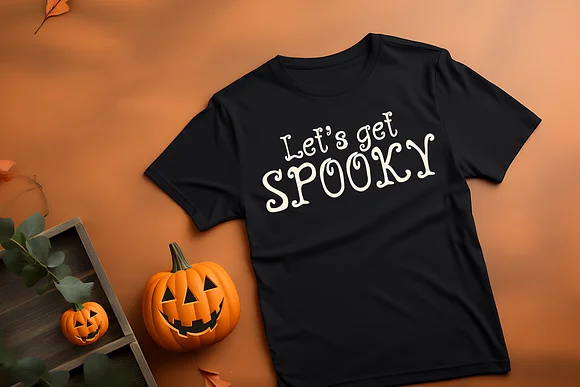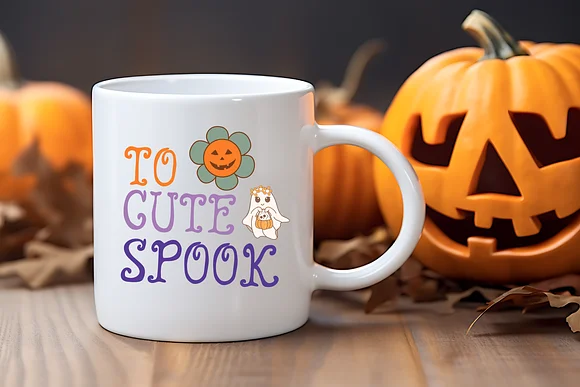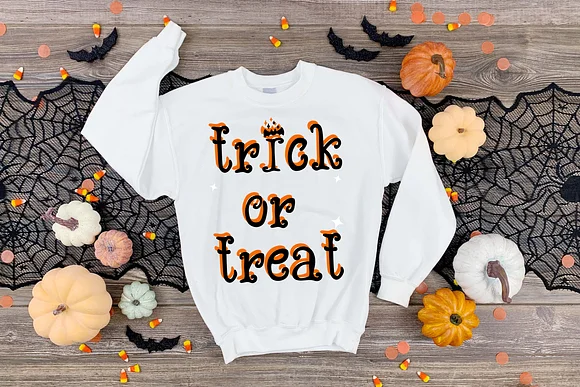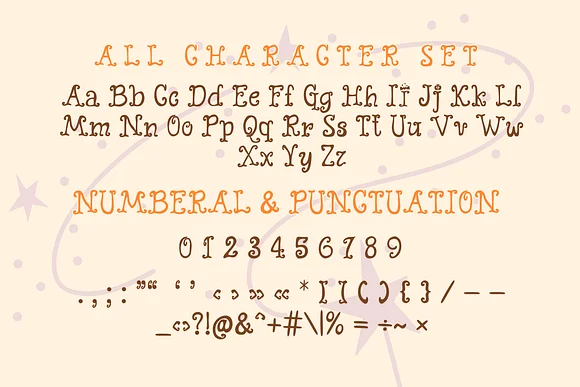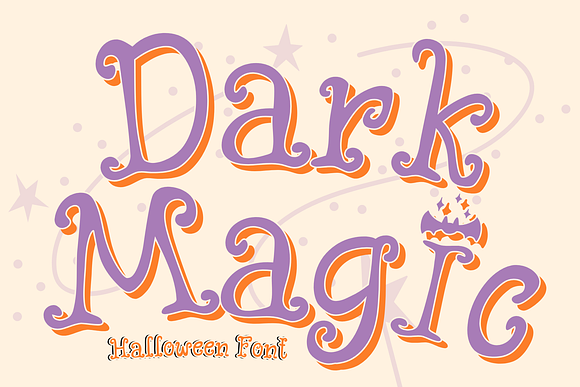
Dark Magic is a Halloween Font
This mystical font is perfect for witch-themed Halloween parties, magical horror events, occult seasonal decorations, spellbinding Halloween invitations, mystical costume parties, enchanted Halloween displays, supernatural themed events, magical horror branding, bewitching Halloween marketing, and mysteriously magical Halloween messaging materials.
Dark Magic is a Halloween Font is exciting because it channels the ancient power and mysterious allure of dark sorcery through its mystically crafted letterforms that seem to pulse with forbidden knowledge and supernatural energy drawn from the shadow realm. The font features enigmatically curved characters with arcane proportions and occult details that evoke the spine-tingling fascination of witchcraft and dark magic, incorporating spell-inspired flourishes and mystical elements that create typography as mesmerizing and dangerous as incantations whispered in moonlit forests. Each letter showcases the seductive power and ominous beauty that makes dark magic so irresistibly terrifying, with enchanting curves and bewitching accents that transform ordinary text into magical incantations that seem to cast spells on anyone who dares to read them. The design perfectly captures the intoxicating blend of fear and fascination that dark magic represents, creating typography that feels genuinely enchanted and supernaturally powerful.
The Dark Magic is a Halloween Font family includes mystical style variations: Regular, Bold, Light, Enchanted, and Cursed versions. The collection features special magical elements including spell accents, mystical flourishes, occult symbols, and bewitching ornaments. Additional components include magical borders, enchanted frames, spellbinding decorations, and mystical ornamental designs that enhance the font's dark magic Halloween appeal and create cohesive supernatural magic themes.
Occult enthusiasts and magical Halloween creators will find Dark Magic is a Halloween Font to be an exceptional resource for creating authentically mystical Halloween communications that tap into the ancient power and supernatural allure of dark magic traditions. This mystically crafted font transforms ordinary Halloween messaging into magical expressions that resonate with audiences drawn to the mysterious world of witchcraft, sorcery, and the supernatural forces that make Halloween the perfect time to explore the darker arts.
The typeface includes comprehensive character support with mystical styling that maintains excellent readability while conveying the supernatural power and magical allure of dark magic Halloween celebrations. The font's enchanted design ensures spellbinding results across both amateur magical applications and professional occult-themed Halloween productions.
Perfect for witch-themed events, magical Halloween celebrations, occult seasonal marketing, and mystically enchanted Halloween communications, this font delivers supernaturally captivating visual impact that communicates ancient power, mysterious allure, and the bewitching magic that makes dark sorcery such a fascinating and eternally compelling aspect of Halloween mysticism.